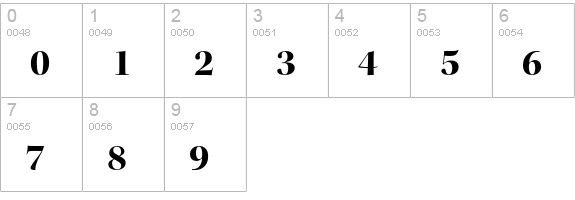
Kepler Std Bold Display Font Details
Kepler Std Bold Display is a strong, high-contrast variant in the Kepler typeface family \xE2\x80\x94 well suited to headlines, attention-grabbing titles, and strong calls-to-action.
The Kepler Std Bold Display font is a stunning typeface that exudes confidence, elegance, and modernity. With its bold and striking design, this font is perfect for creating eye-catching headlines, captivating titles, and impactful graphics. Featuring a harmonious balance between classic and contemporary elements, the Kepler Std Bold Display font effortlessly combines sharp edges with smooth curves, resulting in a visual masterpiece that is both versatile and captivating. This font is ideal for a wide range of design projects, such as branding, advertising, packaging, posters, and more. Its bold and commanding presence is sure to grab attention and leave a lasting impression on your audience. As an added bonus, the Kepler Std Bold Display font is freely available to download at FontsMarket.com. This means that you can easily access and utilize this incredible font without any cost or restrictions. Whether you're a professional designer or a casual enthusiast, this font offers a world of creative possibilities at your fingertips. So why wait? Enhance your designs and make a bold statement with the Kepler Std Bold Display font. Download it for free at FontsMarket.com and let your creativity soar to new heights.